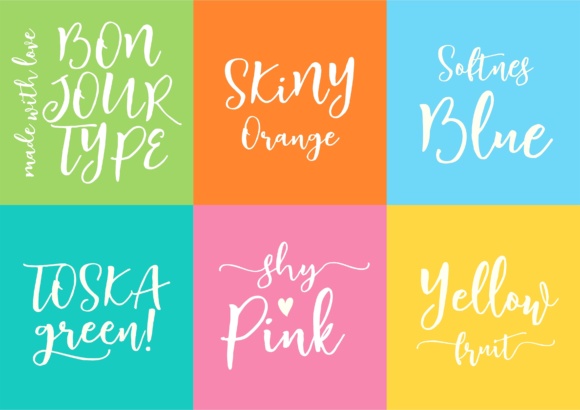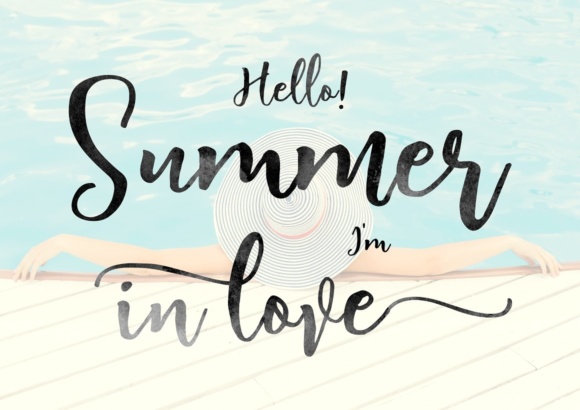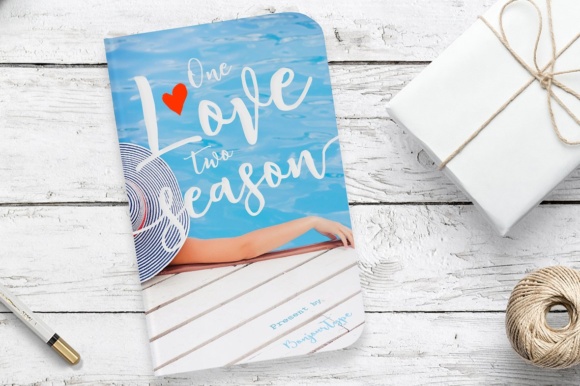
Introduction to ArtLove Font
Have you ever stumbled upon a font that perfectly captures the essence of your creative vision? For designers and art enthusiasts alike, discovering the perfect font can be a game-changer. It’s that magical moment when the words on your screen transform into a masterpiece, and you know you’ve found your perfect match. For those who love art, the journey to finding the ideal font can be a thrilling adventure.
Enter the ArtLove Font, a stunning design resource that has captured the hearts of many. With its high-quality, elegant aesthetic, this font is perfect for a wide range of creative projects, from book covers and stationery to marketing materials and wedding card designs. Whether you’re looking for a free download or a professional design tool, the ArtLove Font is an invaluable resource that will elevate your designs to new heights.
Key Features of ArtLove Font
- High-quality design resource ideal for creative projects, including digital art, graphics, and web design.
- Unique, hand-drawn style with a transparent background, perfect for adding a touch of personality to your designs.
Honest Review: ArtLove Font
As a designer, I’m always on the lookout for high-quality design resources to elevate my creative projects. Recently, I came across the ArtLove Font, and I was excited to give it a try. Here’s my honest review.
- The transparent background option allows for seamless integration with my design projects.
- The font is highly customizable, making it perfect for a wide range of creative projects.
- The font is available in a variety of styles, from elegant to playful, making it suitable for various design applications.
- The font is not available in as many weights as I would have liked.
- The font could benefit from more support for special characters and languages.
Overall, I’m impressed with the ArtLove Font. While it has some limitations, its high quality and versatility make it a valuable addition to my design resource library. If you’re looking for a free download that can add a touch of elegance to your creative project, I would definitely recommend giving it a try.
To get the most out of ArtLove Font, experiment with different font sizes, colors, and combinations. You can also use the font in conjunction with other design elements, such as images and graphics, to create a visually appealing design.
ArtLove Font is commonly used in creative projects, such as wedding invitations, social media graphics, and blog posts. Its unique style and high quality make it an ideal choice for designers looking to add a touch of elegance to their work.